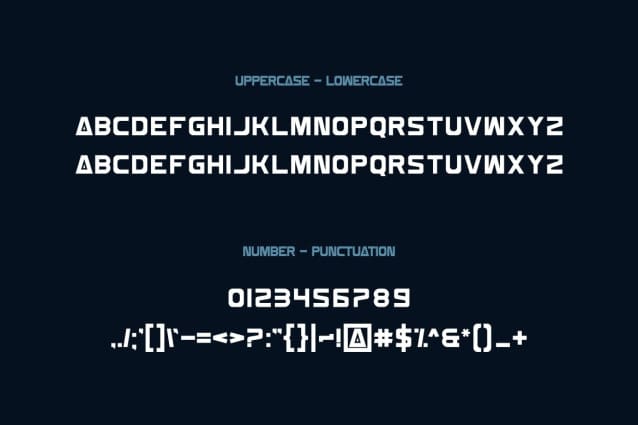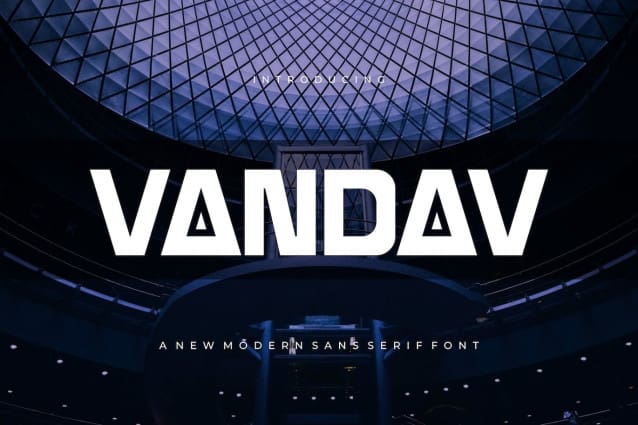
Vandav Font
Vandav Font – Modern Font is a simple and authentic display font. It would be a perfect choice to design posters, affiches, logos, t-shirt and magazine prints, eye-pleasing typographic designs and more.